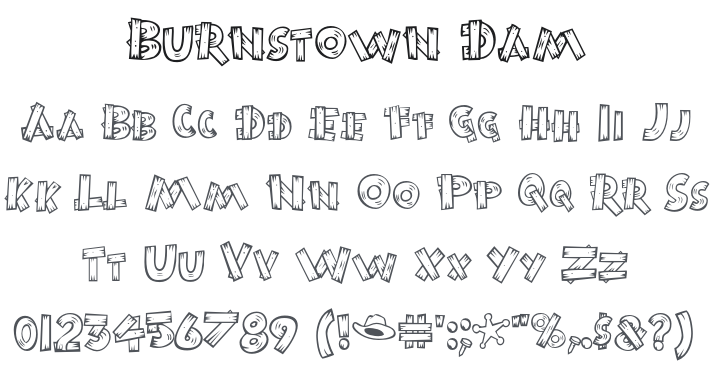
Burnstown Dam Font Family
About Burnstown Dam
Burnstown Dam is a bold, rustic small-caps display typeface with a woodcut-like texture — letters look hand-carved from rough timber, with chunky exaggerated serifs and pleasingly uneven edges. It comes in four layers (regular, back, front, nails) for creative stacking effects. Perfect for country branding, whiskey and hot sauce labels, BBQ posters, western-themed events, and rural Americana aesthetics.